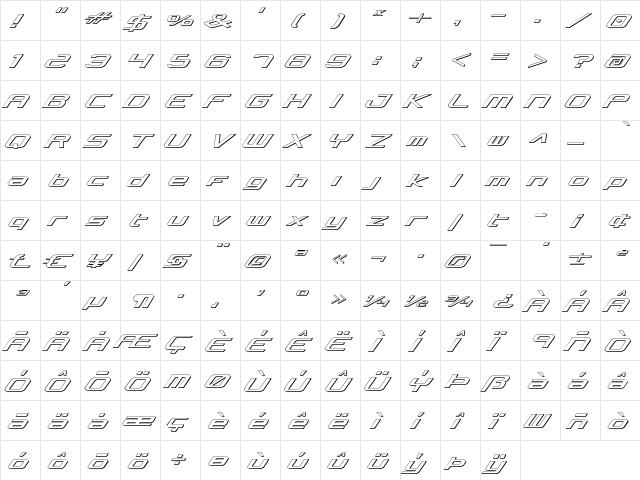
Concielian Classic 3D Regular
Design Context for Concielian Classic 3D Typeface
Concielian Classic 3D has the warm character of retro typography — evoking diners, record sleeves, and the golden age of print advertising.
Font Pairing: Combine Concielian Classic 3D with a simple slab or neutral sans — period-accurate companions reinforce the vintage feel without competing for attention.
Pro Tip: Use Concielian Classic 3D for headlines and pull quotes rather than body copy — its personality is best appreciated in short, focused bursts.